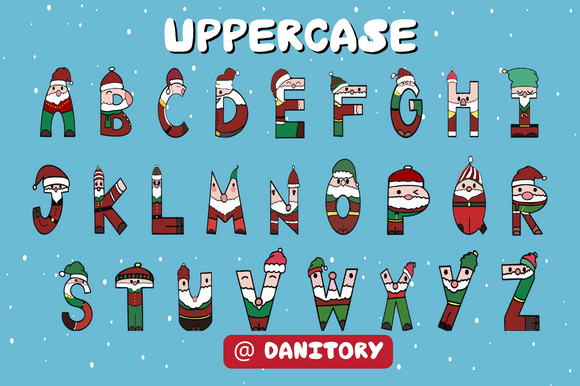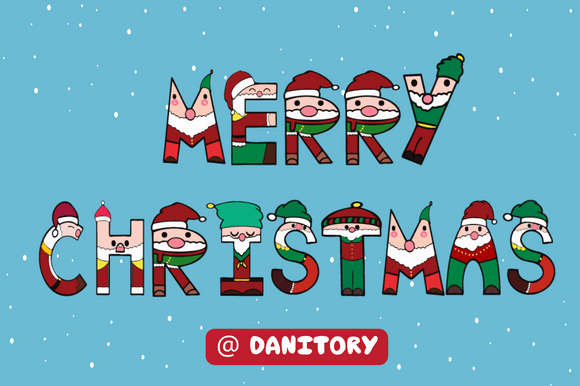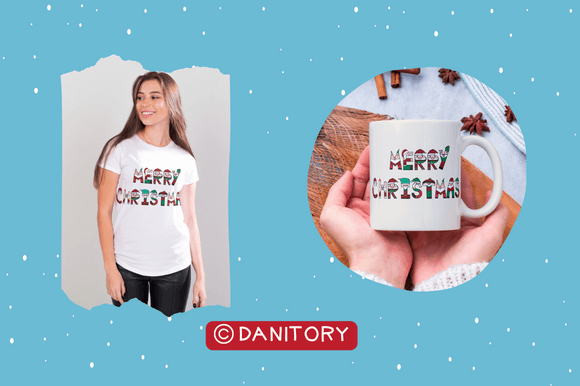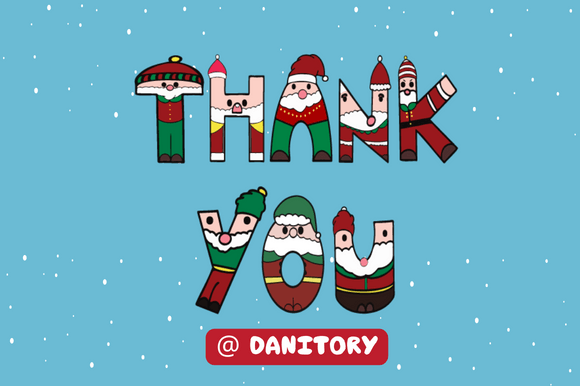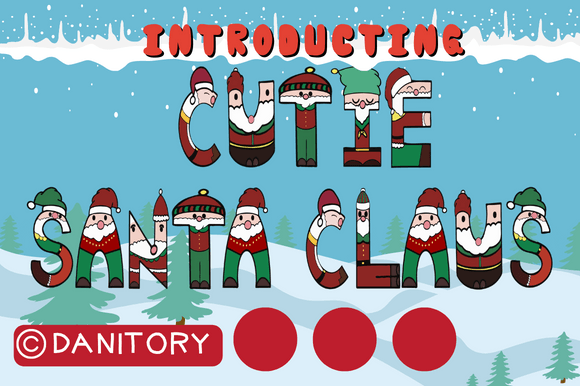
Cutie Santa Claus Font
About Cutie Santa Claus Font
Introducing Cutie Santa Claus, a charming and adorable color font designed specifically for the upcoming Christmas season. With its playful and festive design, this font is perfect for adding a touch of holiday cheer to your creative projects.
Cutie Santa Claus features a variety of cute Santa Claus characters in vibrant colors. Each letter is uniquely designed to showcase the jolly spirit of Christmas. Whether you’re creating holiday-themed crafts, designing Christmas cards, or working on festive decorations, this font will bring your ideas to life.
Whether you’re working on handmade gifts, party invitations, or festive social media posts, Cutie Santa Claus will add a delightful touch to your designs. Its playful and charming style will capture the hearts of both children and adults alike.
Get into the Christmas spirit with Cutie Santa Claus and let its cute Santa Claus characters bring joy and warmth to your creative projects. Embrace the festive season and watch as this color font transforms your ideas into delightful and memorable creations.